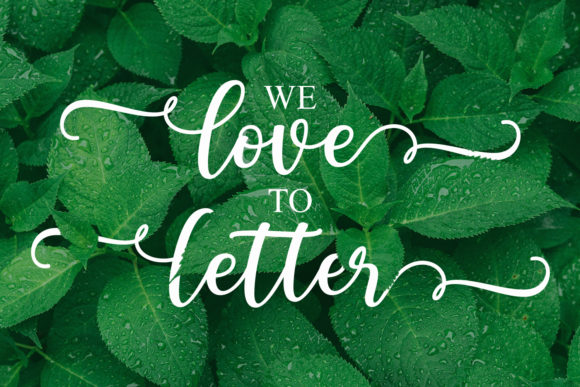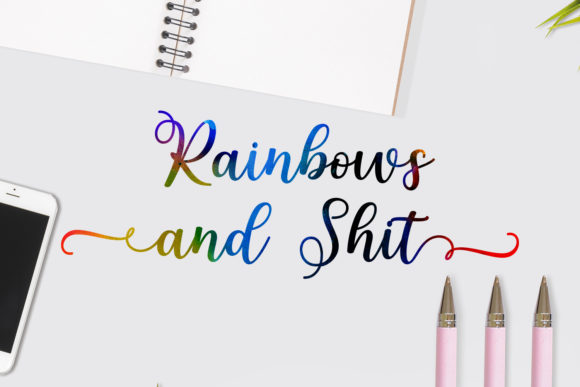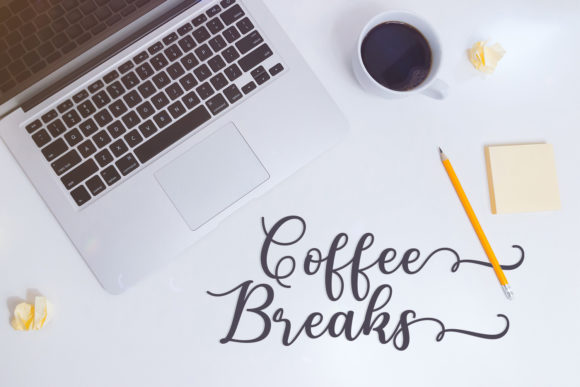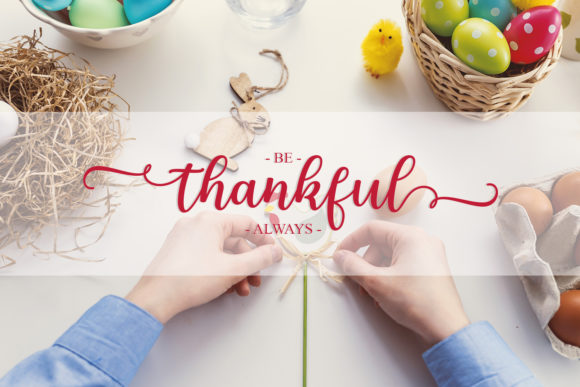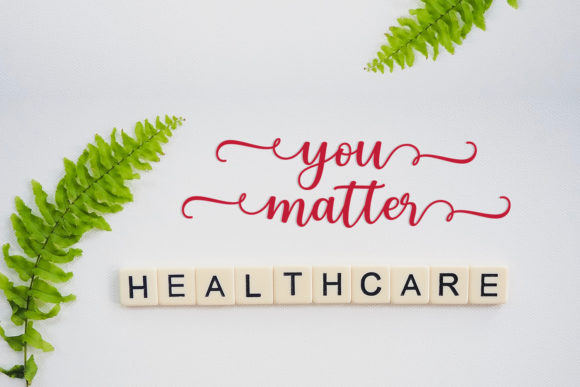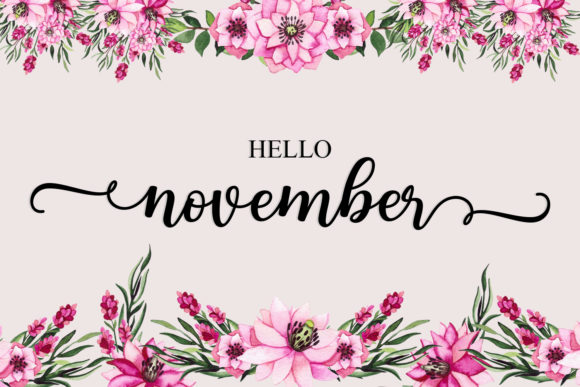
Discover the Charm of Adiline Font: Elevate Your Designs with a Unique Script Font
Are you tired of using the same old fonts in your designs? Look no further! Adiline Font is here to revolutionize your creative projects with its incredibly cute and unique script style. This charming font is designed to turn any design idea into a piece of art, and we’re excited to dive into its features and benefits.
The Unique Charm of Adiline Font
Adiline Font boasts a one-of-a-kind, authentic charm that sets it apart from other script fonts. Its distinctive lettering style is both elegant and playful, making it perfect for a wide range of design projects. Whether you’re working on a logo, invitation, or social media graphic, Adiline Font is sure to add a touch of personality and whimsy.
One of the standout features of Adiline Font is its ability to evoke emotions and create a connection with the viewer. Its unique character makes it perfect for designers who want to add a personal touch to their work. With Adiline Font, you can create designs that are not only visually stunning but also tell a story.
Features and Benefits of Adiline Font
So, what makes Adiline Font so special? Here are just a few of its key features and benefits:
- Unique Script Style: Adiline Font features a distinctive script style that’s both elegant and playful.
- Highly Versatile: This font is perfect for a wide range of design projects, from logos and invitations to social media graphics and more.
- Easy to Read: Despite its unique style, Adiline Font is highly legible, making it perfect for designs that require a clear message.
- Customizable: With Adiline Font, you can experiment with different colors, sizes, and styles to create a unique look that suits your brand.
How to Use Adiline Font in Your Designs
Using Adiline Font in your designs is easy! Here are a few tips to get you started:
- Pair it with Other Fonts: Adiline Font pairs perfectly with other fonts, such as sans-serif fonts like Arial or Helvetica. Experiment with different combinations to find the perfect look for your design.
- Experiment with Colors: Adiline Font looks great in a variety of colors, from bold and bright to soft and pastel. Try out different colors to find the one that works best for your design.
- Use it for Headings and Titles: Adiline Font is perfect for headings and titles, where its unique style can really shine.
Why Designers and Crafters Love Adiline Font
Adiline Font has quickly become a favorite among designers and crafters, and it’s easy to see why. Here are just a few reasons why:
- Unique Style: Adiline Font offers a unique style that’s hard to find in other fonts.
- Ease of Use: This font is easy to use and customize, making it perfect for designers of all levels.
- High-Quality Design: Adiline Font is designed with high-quality in mind, ensuring that your designs look professional and polished.
In conclusion, Adiline Font is an incredibly cute and unique script font that’s sure to elevate your designs. With its authentic charm, highly versatile style, and ease of use, it’s perfect for designers and crafters who want to add a personal touch to their work. Whether you’re working on a logo, invitation, or social media graphic, Adiline Font is the perfect choice. So why wait? Fall in love with Adiline Font and turn your design ideas into pieces of art!